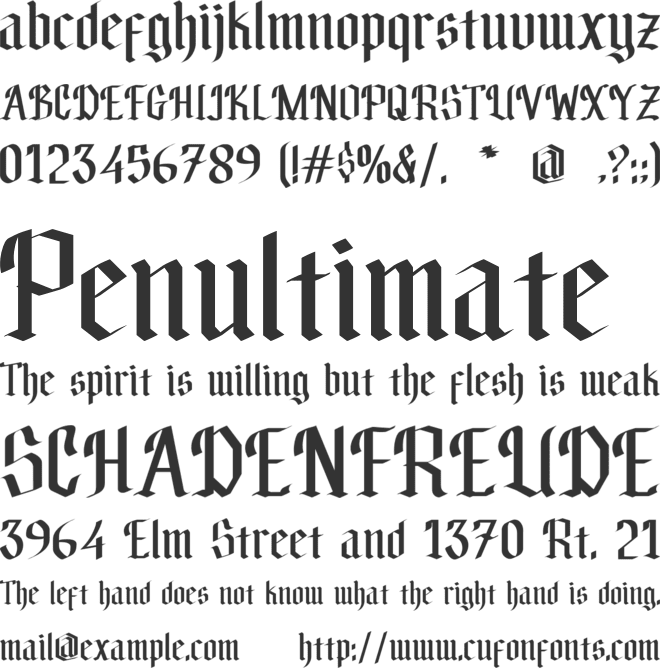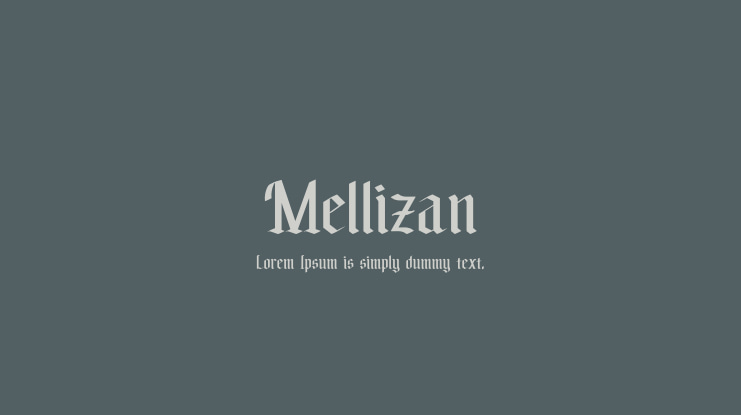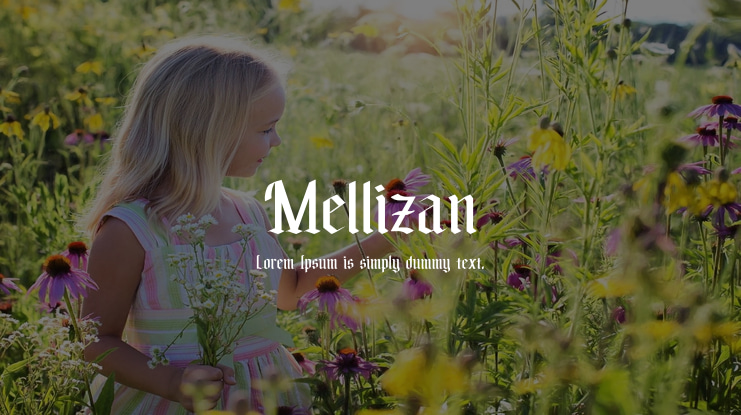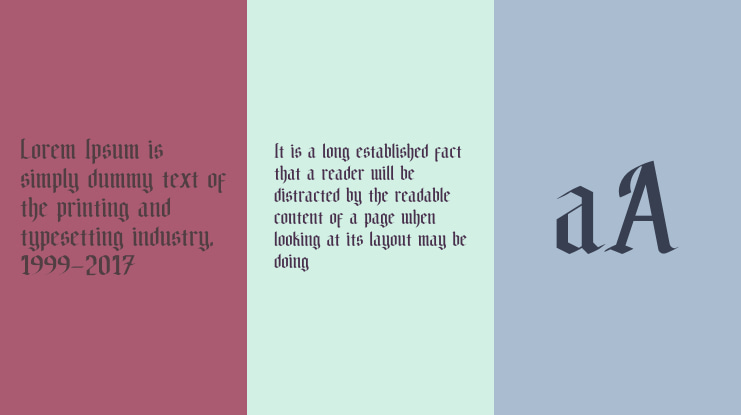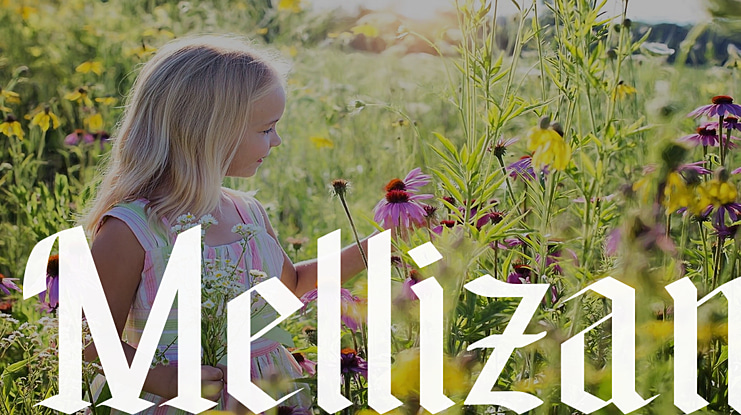
Mellizan Font
ARI BUDI SETIAWAN
Mellizan is Modern Gothic Blackletter Font, unique gothic blackletter for your design, perfect for clothing, labels and packaging, branding, or any Gothic-themed projects.